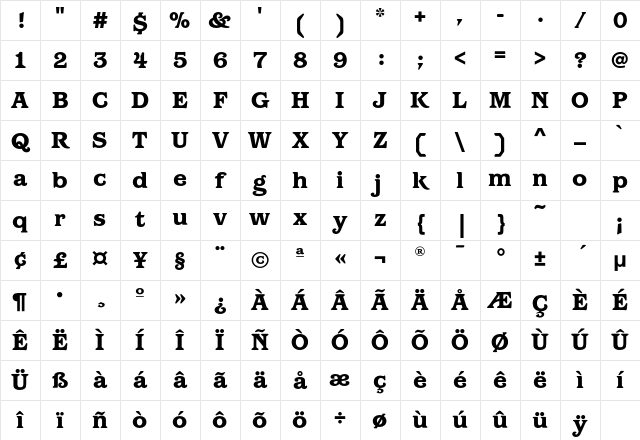
BarcelonaEF-Heavy Regular
Complete BarcelonaEF-Heavy Regular glyph index. Displaying only characters natively supported by BarcelonaEF-Heavy Regular font.
Design Context for BarcelonaEF-Heavy
BarcelonaEF-Heavy is a composed and adaptable typeface that performs quietly and consistently across a wide range of design contexts.